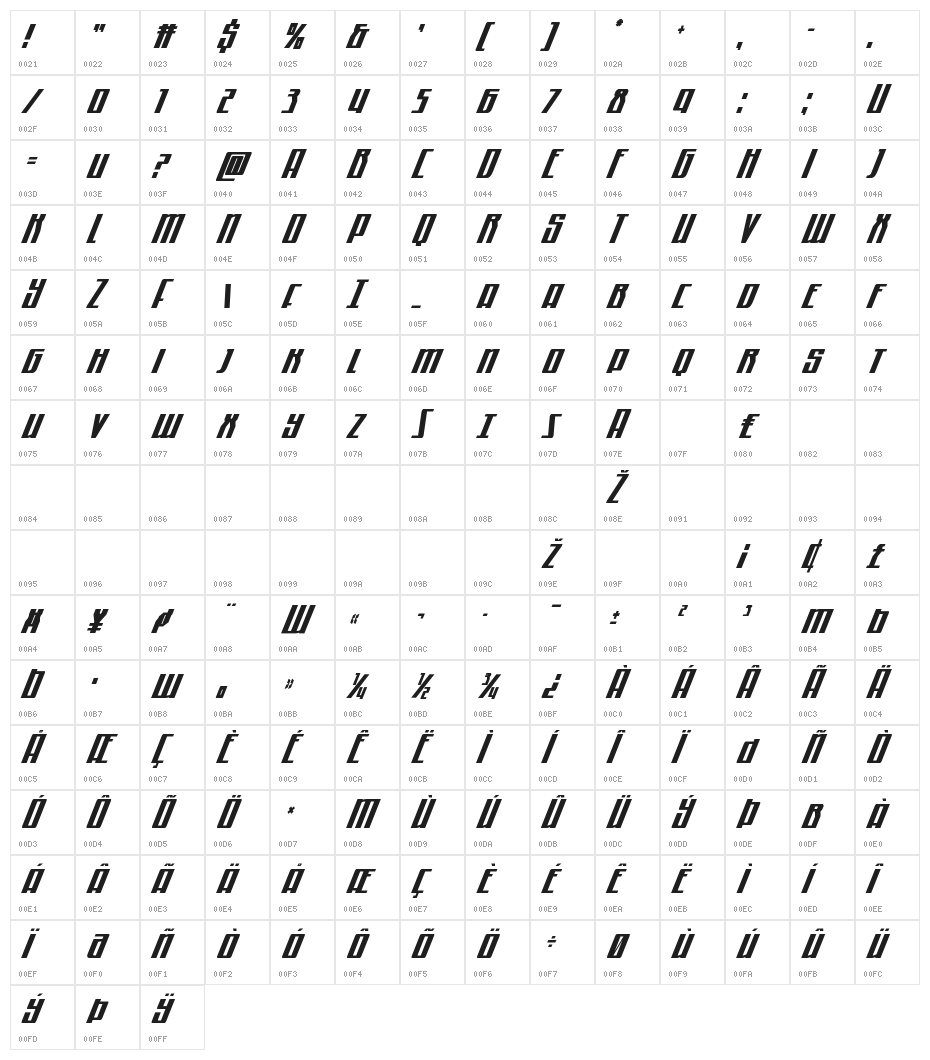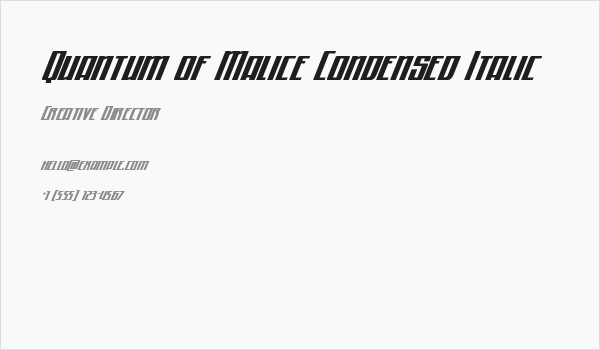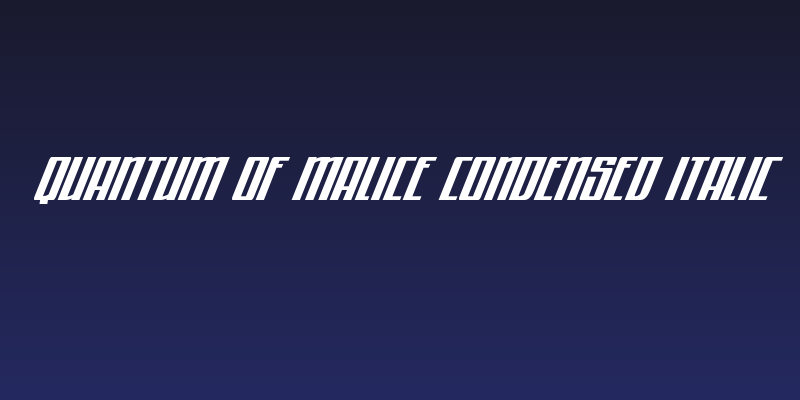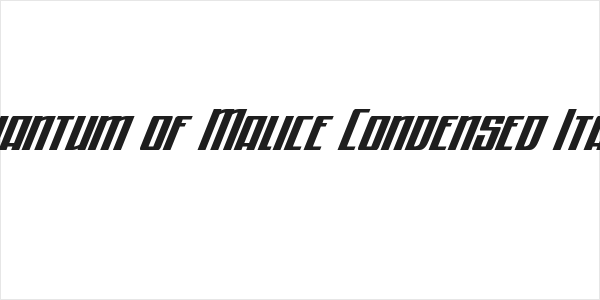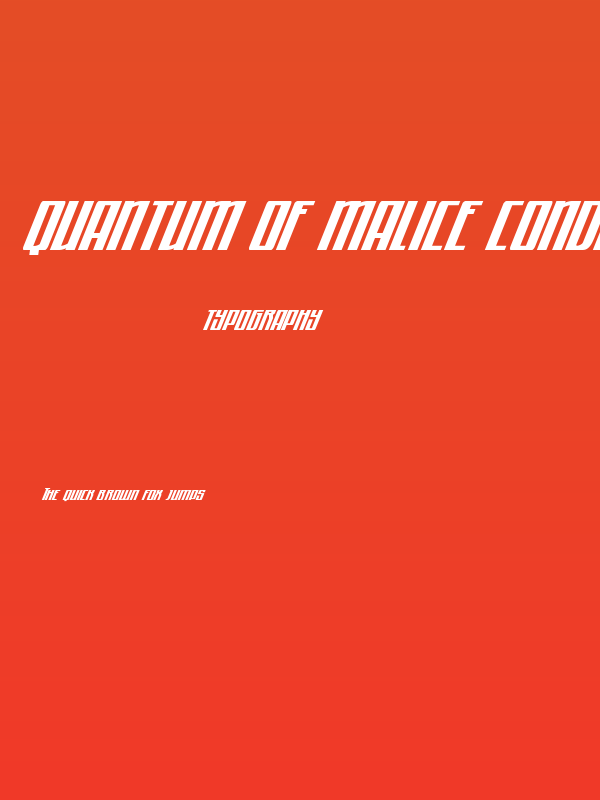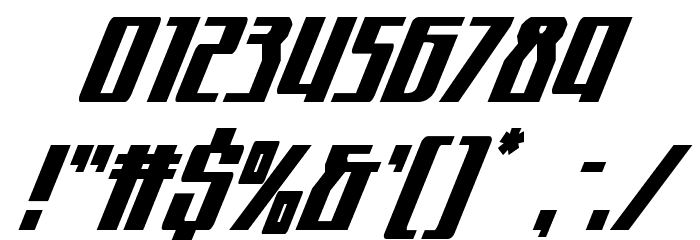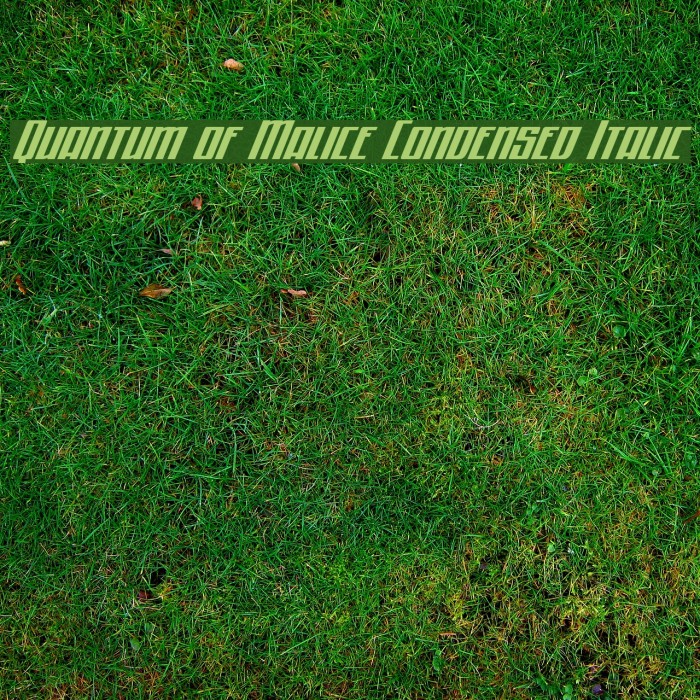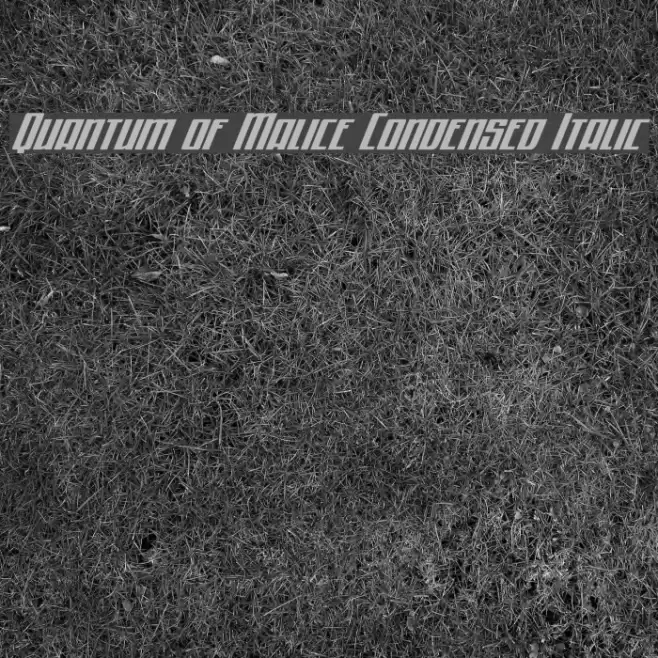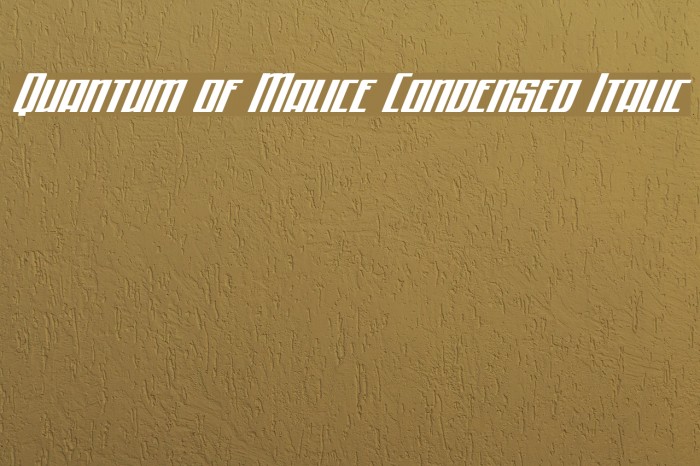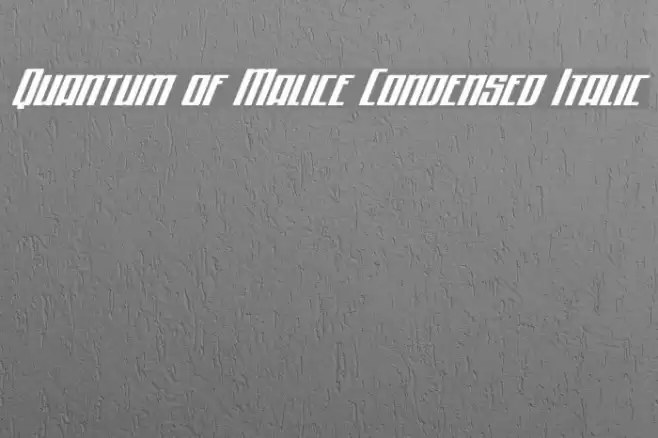
Quantum of Malice Condensed Italic Font
Quantum of Malice Condensed Italic Description
This font features a bold, angular design with a distinct italic slant, giving it a dynamic and energetic appearance. The condensed letterforms are tightly spaced, enhancing its compact and impactful look. The sharp edges and geometric shapes contribute to a modern and futuristic style, making it stand out in any design. The uppercase and lowercase letters maintain a consistent style, with numerals and special characters following the same angular theme. This font is ideal for projects that require a strong visual presence and a sense of movement.
| Proposed Projects | Perfect for sports branding, action movie posters, video game titles, and dynamic advertising campaigns. |